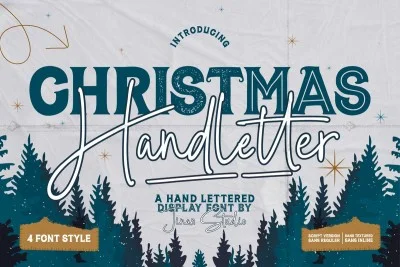
Christmas Handletter Font
This authentic font is perfect for handmade Christmas cards, personalized holiday letters, calligraphy Christmas invitations, artisan Christmas packaging, custom holiday signage, handlettered Christmas quotes, boutique seasonal branding, craft Christmas projects, intimate holiday correspondence, and elegant handwritten Christmas messaging.
Christmas Handletter Font is exciting because it captures the intimate artistry and personal touch of genuine hand lettering through its authentically crafted letterforms that mirror the beautiful imperfections and natural flow of skilled calligraphy. The font features organic character variations with subtle inconsistencies and flowing connections that recreate the warmth and personality of actual pen-and-ink lettering, incorporating gentle pressure variations and natural flourishes that make each word feel lovingly hand-crafted by a talented artist. Each letter showcases the human element that makes handwritten communication so special, with organic curves and individual character that digital fonts often lack. The design perfectly bridges the gap between traditional handwriting artistry and modern convenience, creating typography that delivers the soul and authenticity of custom lettering while offering the efficiency of digital design.
The Christmas Handletter Font family includes artisanal style variations: Regular, Bold, Light, Script, and Flourish versions. The collection features special hand-lettered elements including calligraphic swashes, organic flourishes, natural connecting strokes, and artistic ornamental details. Additional components include handlettered borders, calligraphy frames, artisan decorations, and elegant ornamental designs that enhance the font's Christmas handletter appeal and create cohesive handcrafted holiday themes.
Calligraphers and artisan designers will find Christmas Handletter Font to be an exceptional tool for creating authentic handlettered communications that celebrate the artistry and personal connection of traditional Christmas correspondence. This skillfully crafted font transforms digital text into beautiful handlettered expressions that convey the same warmth and intimacy as custom calligraphy while offering the practical benefits of digital typography.
The typeface includes comprehensive character support with handlettered styling that maintains excellent readability while conveying the artistic authenticity and personal warmth of genuine hand lettering. The font's organic design ensures beautiful results across both intimate personal projects and professional artisan applications.
Perfect for calligraphers, boutique brands, artisan Christmas products, and personal holiday correspondence, this font delivers authentic artistic impact that communicates craftsmanship, intimacy, and the irreplaceable beauty of handlettered Christmas communications that honor the traditional art of beautiful writing and personal expression.